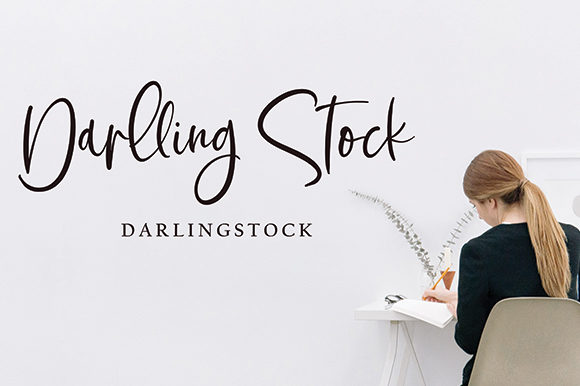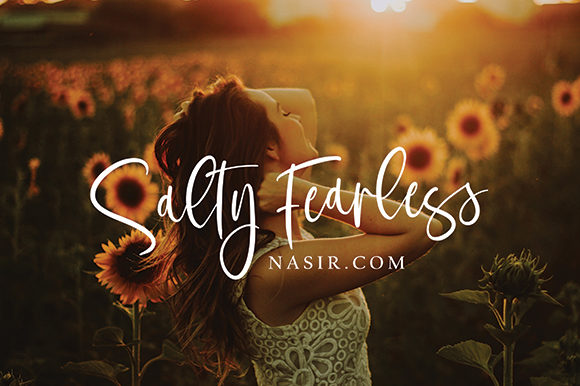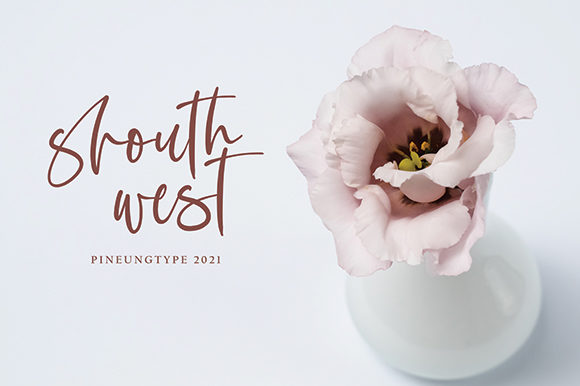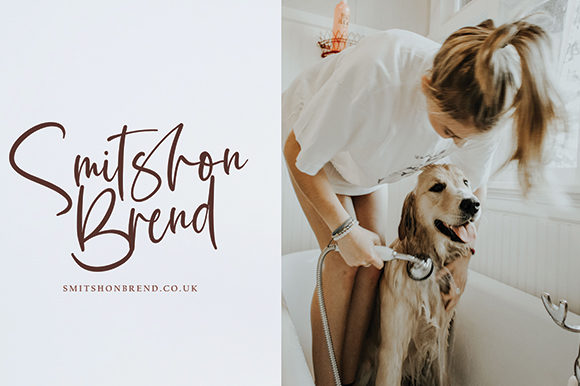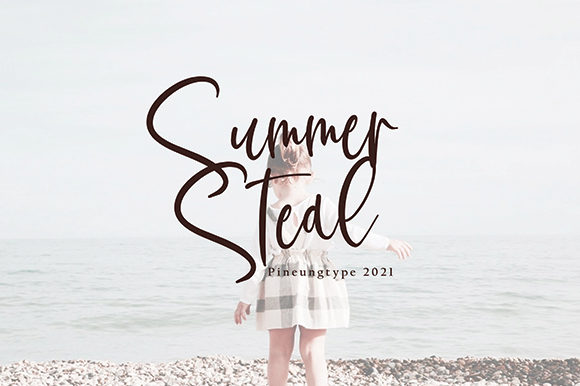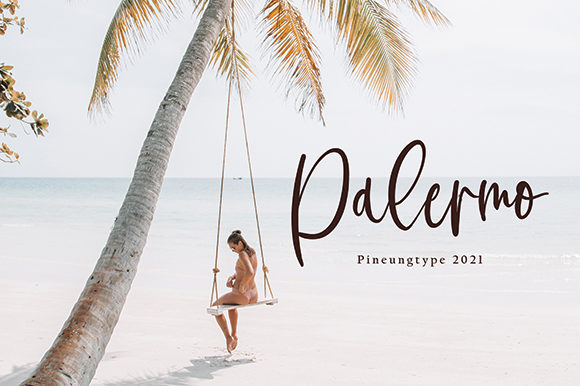
The Perfect Script: Elevating Your Designs with the Busllyan Font
Have you ever sat in front of a blank page, struggling to find the right words to express your creative vision? You’ve brainstormed ideas, sketched out rough drafts, and finally, the perfect phrase comes to mind – but how do you bring it to life? That’s where the right font comes in. For designers and writers alike, the perfect script can make all the difference in conveying emotion and tone.
Enter the Busllyan Font, a whimsical script font designed to add a touch of elegance and playfulness to any project. This lovely font is perfect for crafting beautiful invitations, designing a brand’s visual identity, or simply adding a personal touch to a blog post. With its relaxed theme and versatile style, the Busllyan Font is an incredibly valuable asset to any designer’s library, offering endless possibilities for creative expression.
Busllyan Font Key Features
- Font Family: Busllyan Font is a unique, hand-drawn font with a calligraphic feel.
- Size: The font family includes a range of weights from Thin to Extra Bold, offering flexibility in design applications.
- Unique Characteristics: Busllyan Font features intricate line work, subtle texture, and a mix of geometric and organic shapes, making it perfect for creative and artistic projects.
- Language Support: Designed to support a wide range of languages, including Latin, Cyrillic, and Greek alphabets.
Busllyan Font Review
Overall, I found the Busllyan font to be an interesting addition to the design world. Here are my thoughts on its strengths and weaknesses.
- The unique, hand-drawn aesthetic of the font is quite striking. It’s perfect for adding a touch of personality to designs.
- The font is highly customizable, allowing designers to adjust the letter spacing, line height, and other parameters to suit their needs.
- The font supports a wide range of languages, making it a great option for international projects.
- The font may not be suitable for body text due to its irregular letterforms and variable width. It’s better used for headings or titles.
- The font is not optimized for small font sizes, which can lead to readability issues at smaller scales.
- The font’s uniqueness may also make it difficult to pair with other fonts, limiting its versatility.
In conclusion, the Busllyan font is a great choice for designers looking to add a touch of whimsy to their projects. However, it’s essential to consider its limitations and use it judiciously to avoid readability issues. With careful selection and application, the Busllyan font can be a valuable addition to any designer’s toolkit.
Tips for Getting the Most Out of Busllyan Font
Use Busllyan Font to add a unique touch to your designs. Experiment with different font sizes, colors, and styles to create a visually appealing effect.
Busllyan Font is ideal for use in creative projects, such as:
- Posters and banners
Alternatives to Busllyan Font
Great Vibes is a beautiful, elegant script font that is perfect for creating a luxurious and sophisticated feel. It’s ideal for use in wedding invitations, luxury branding, and high-end advertising campaigns.
Compared to Busllyan Font, Great Vibes has a more refined and polished look, with a more consistent and flowing connection between letters. While Busllyan Font has a more playful and cursive feel, Great Vibes is more suited for formal and elegant applications.
Carolyna Pro is a modern, stylish script font that is perfect for creating a bold and eye-catching effect. It’s ideal for use in fashion branding, luxury packaging, and high-end advertising campaigns.
Compared to Busllyan Font, Carolyna Pro has a more dynamic and energetic feel, with a more fluid and connected look. While Busllyan Font has a more playful and whimsical feel, Carolyna Pro is more suited for modern and trendy applications.